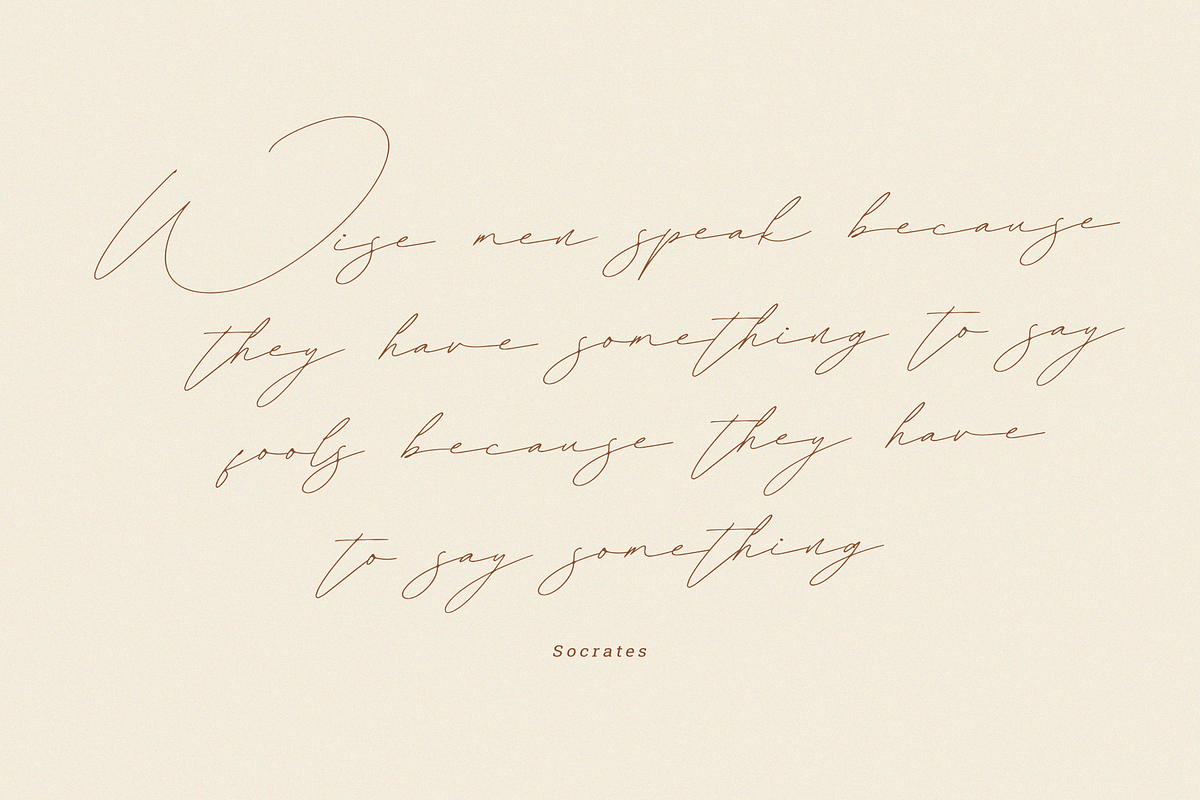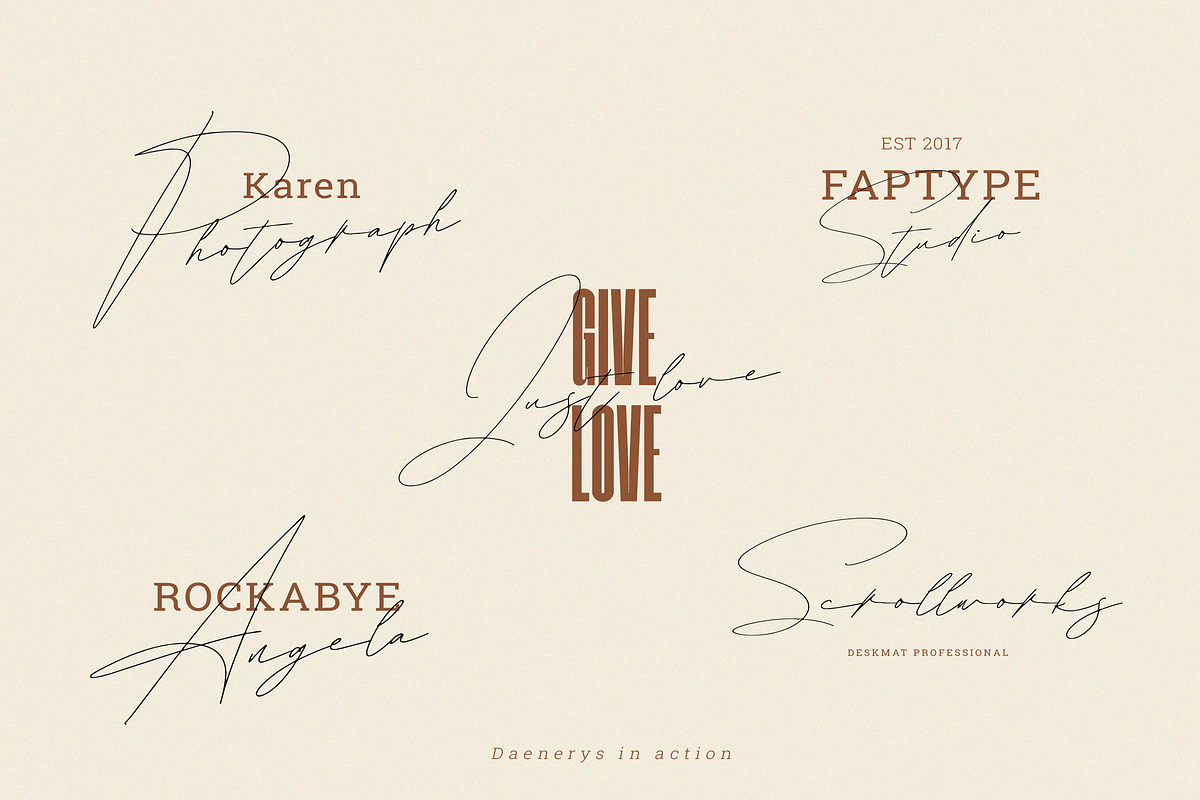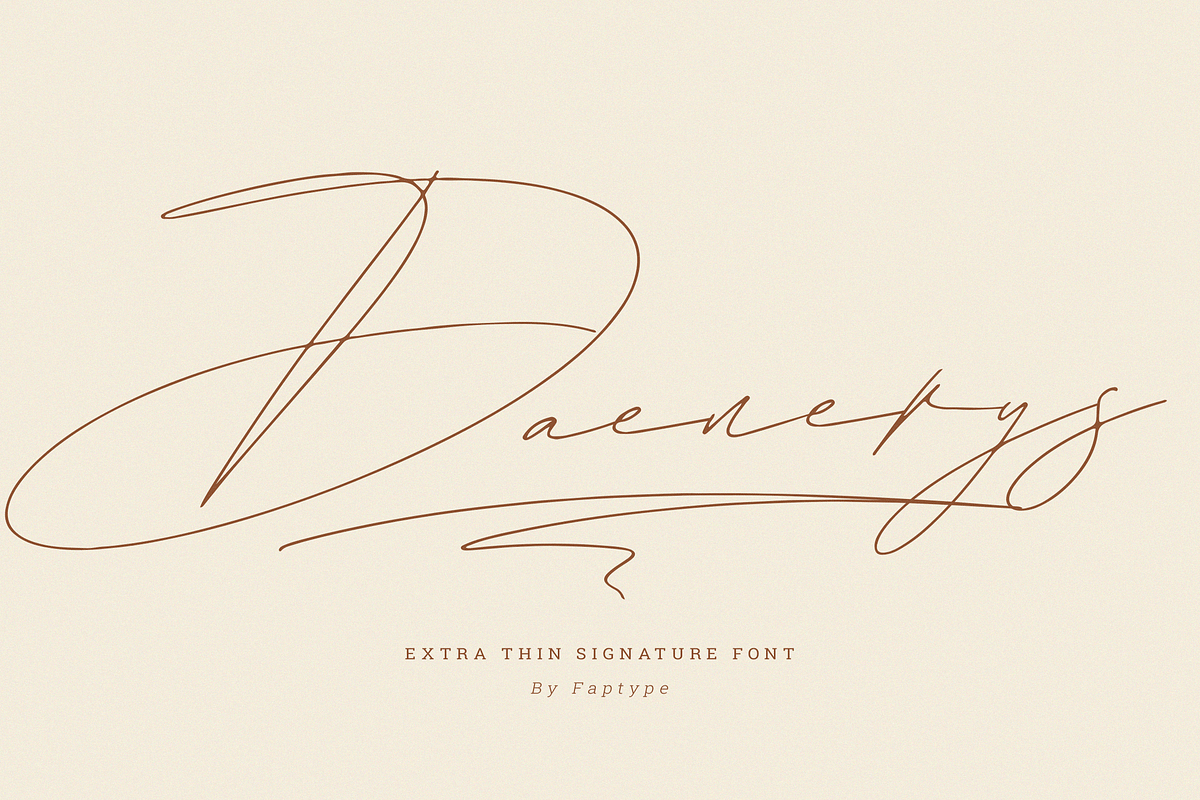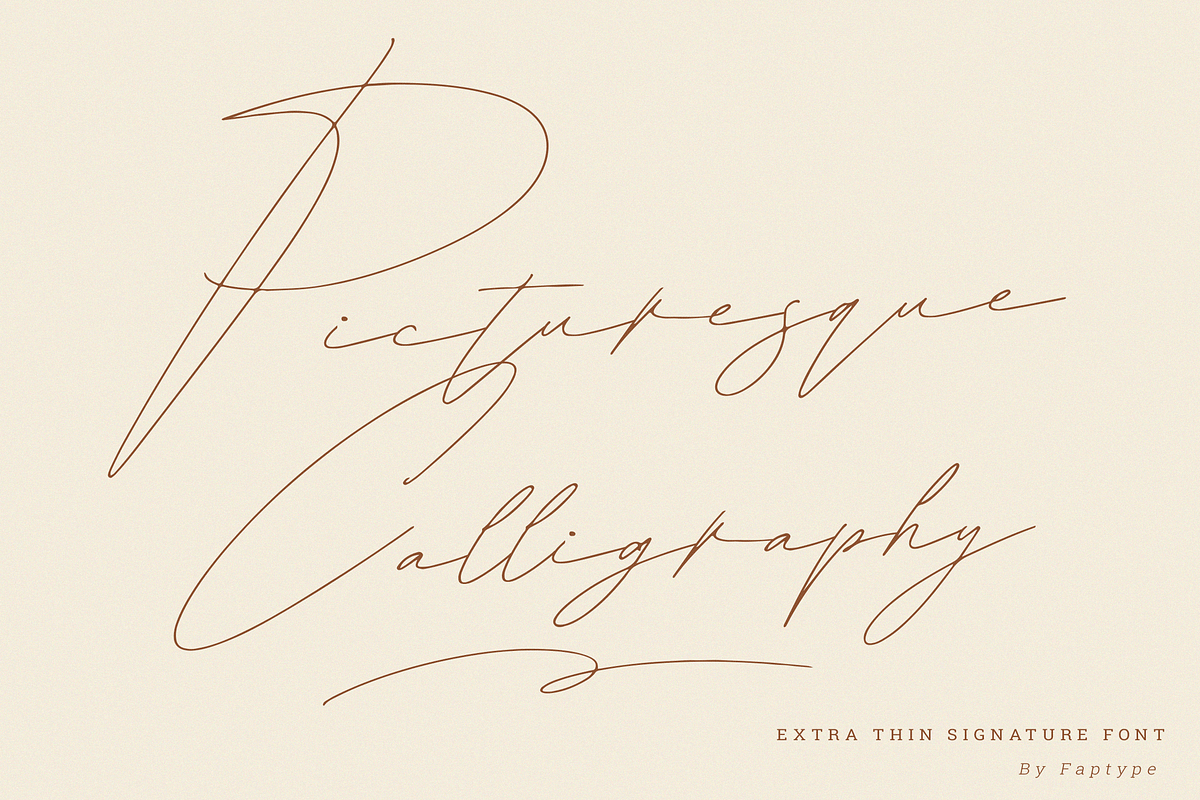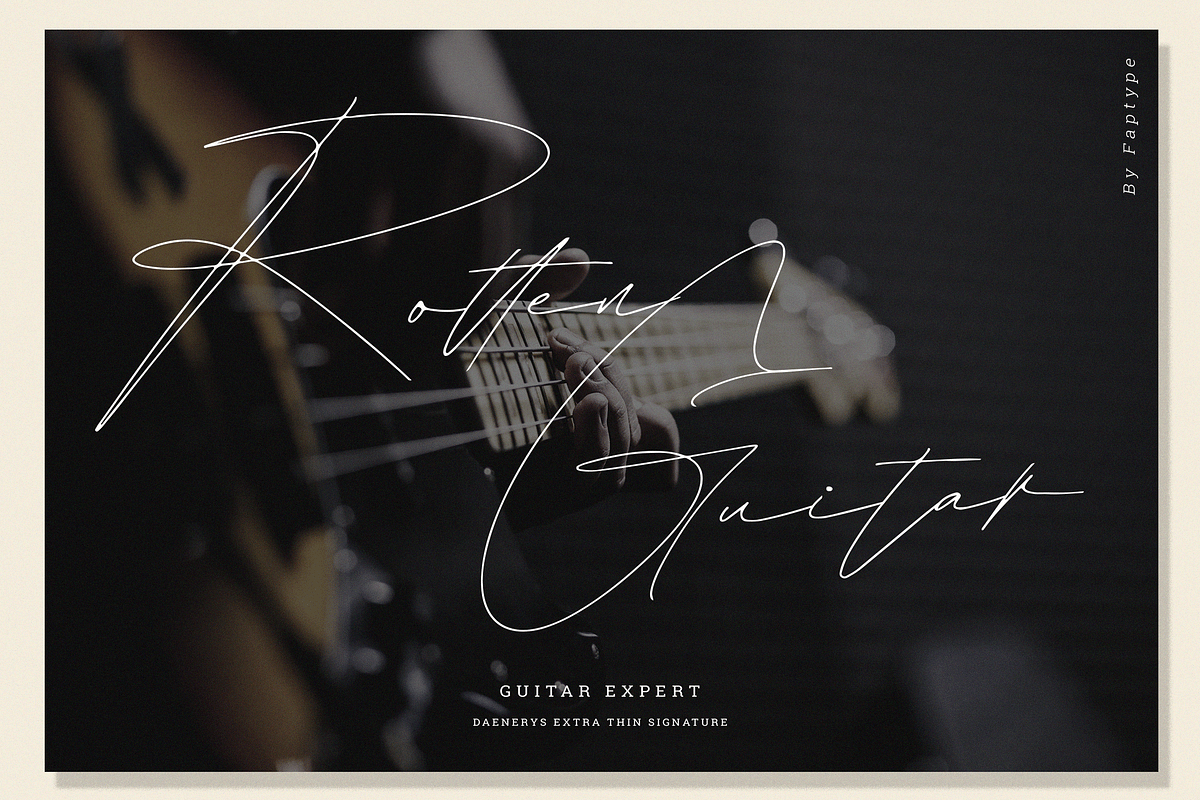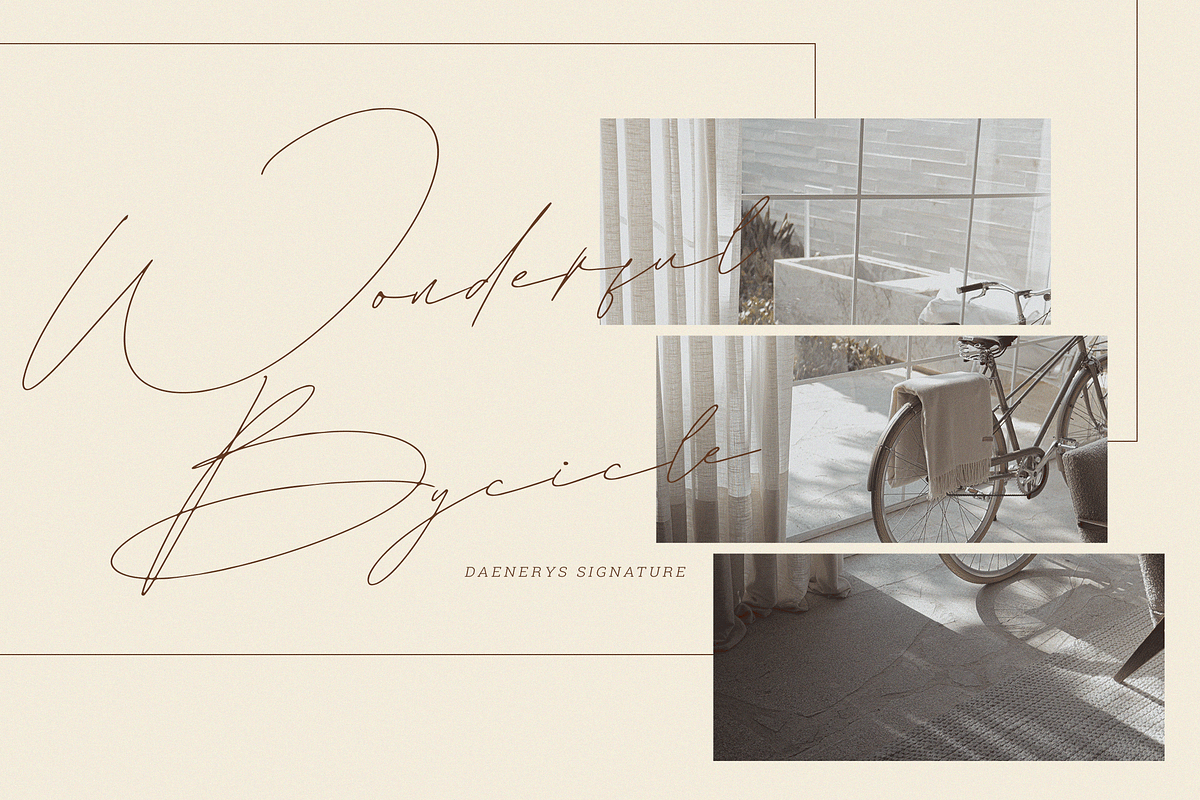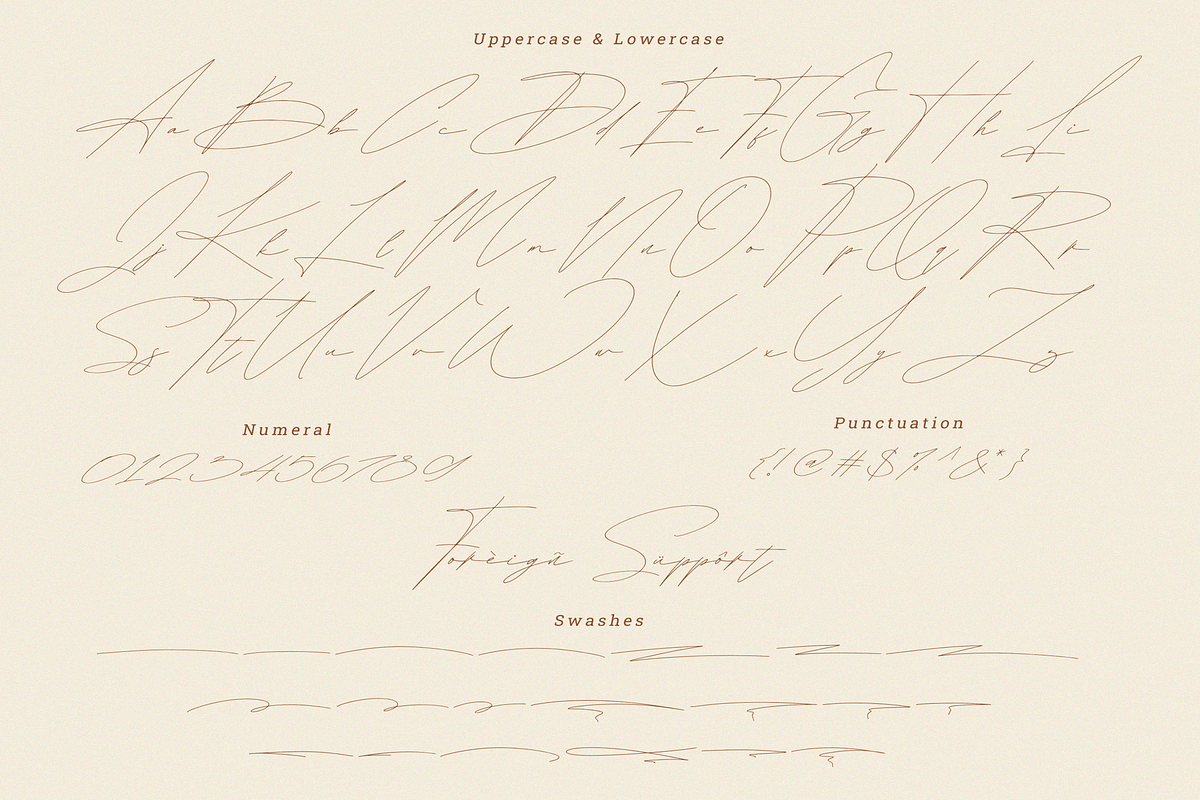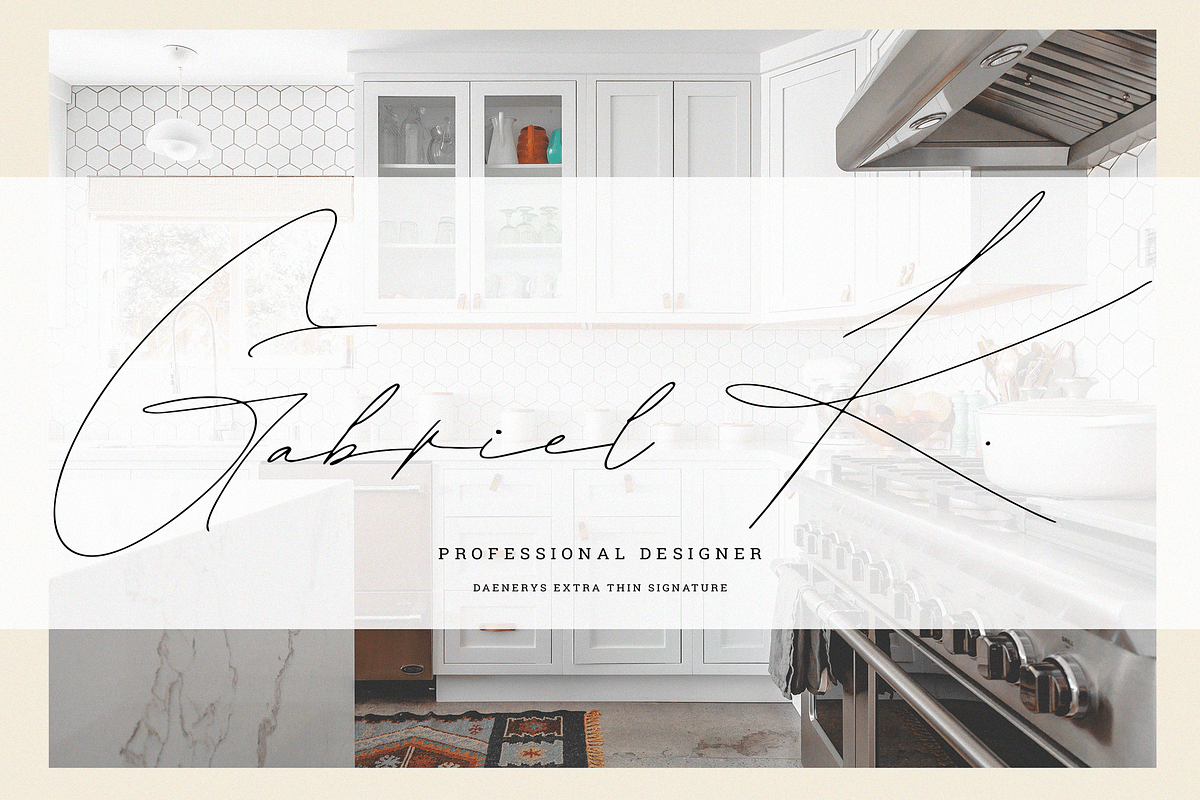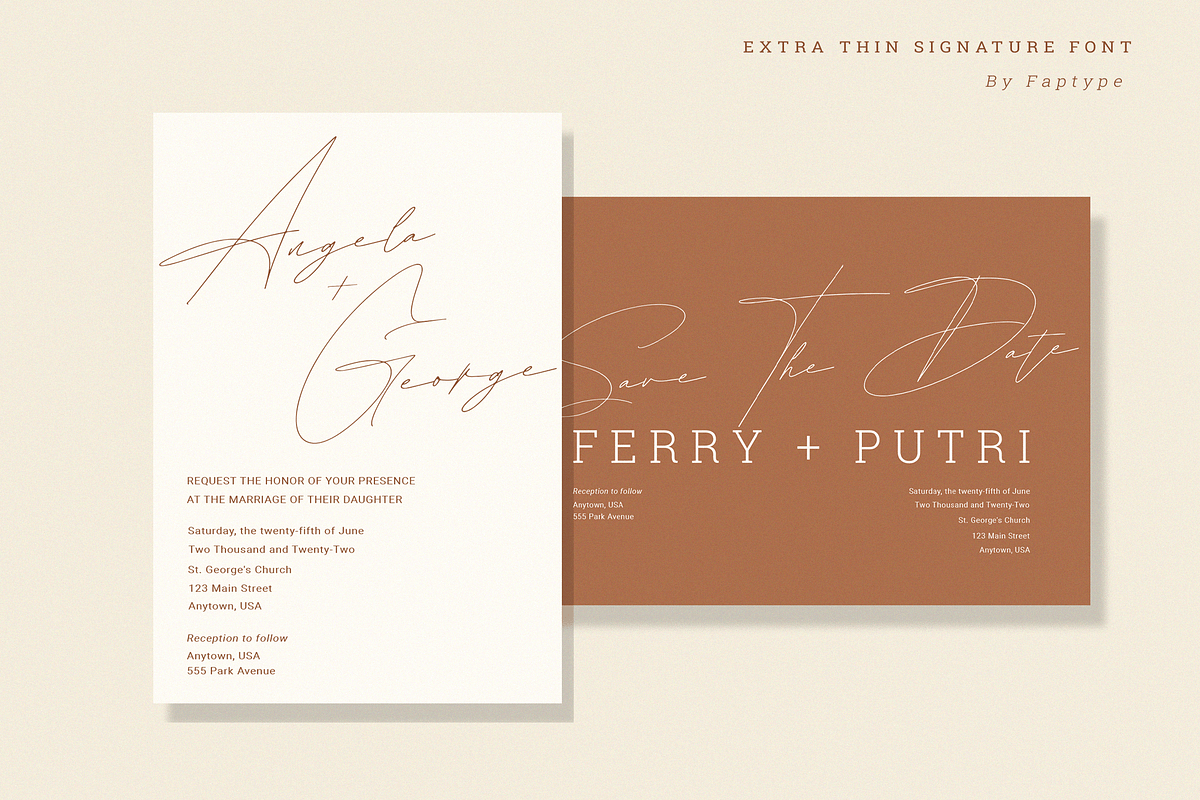
Daenerys | Extra Thin Signature Font
Daenerys is a thin, elegant signature font that is perfect for a wide range of design projects. It has a delicate, calligraphic style with smooth, flowing lines that give it a sense of grace and beauty. The letters have a slight slant, which gives them a hand-written feel, making it suitable for invitations, wedding stationery, and other special occasions.
One of the most striking features of this font is the abundance of swashes. These are decorative flourishes that extend from the letters, adding a unique and ornate touch to your designs. The swashes come in a variety of shapes and sizes, and they can be used to add emphasis and personality to specific letters or words. This makes the font perfect for creating elegant, eye-catching titles and headlines.
The lowercase letters have a unique and modern touch, The uppercase letters are more formal and elegant, making them great for headlines and titles.
Daenerys is a versatile font, it's perfect for branding, packaging, and web design. The thin lines make it easy to read in small sizes and it's also great for overlaying on top of other design elements. Overall, Daenerys is a beautiful and sophisticated font that can add a touch of elegance and personalization to any design project.
Daenerys features:
- A full set of uppercase and lowercase
- Multilingual language support
- OpenType Features
- +274 Total Glyphs
- +40 Signature Swashes